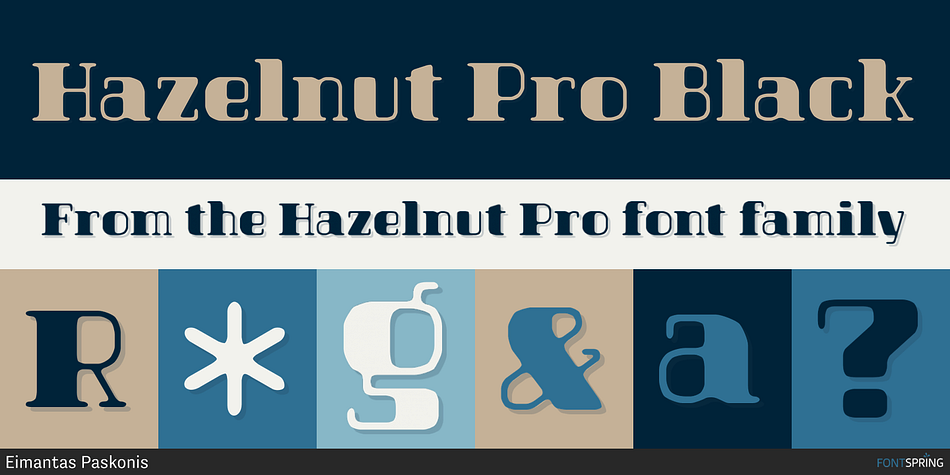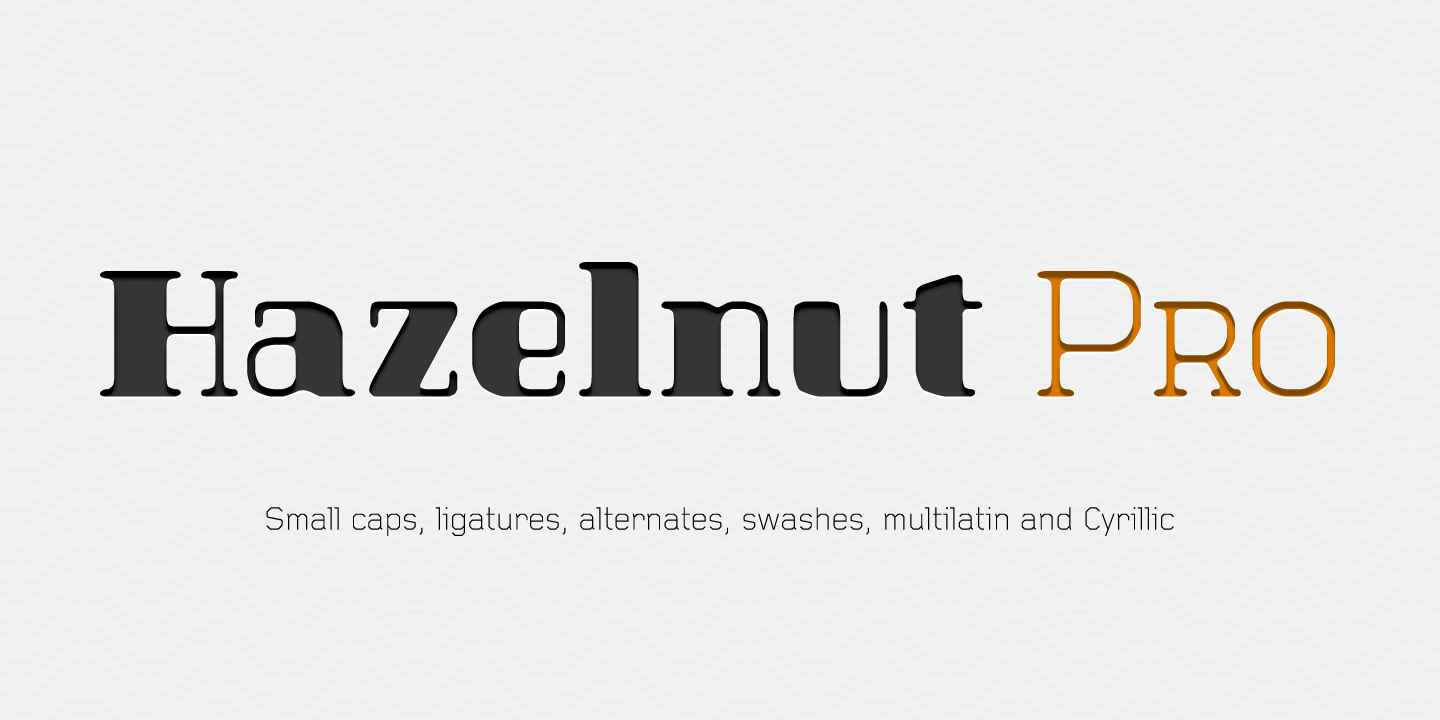
Hazelnut Pro Black
Hazelnut Pro is a display serif, display slab and art deco font family. This typeface has two styles and was published by Eimantas Paskonis.
Hazelnut’s glyphs may seem modular, but each of them was shaped individually to give handmade imperfections, reminiscent of wood type press.
Hazelnut’s glyphs may seem modular, but each of them was shaped individually to give handmade imperfections, reminiscent of wood type press. This allows for plenty of details at large sizes.